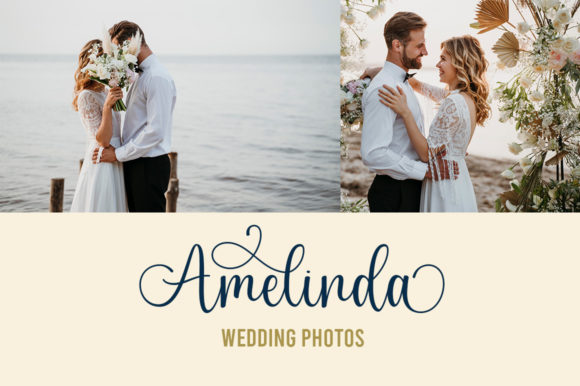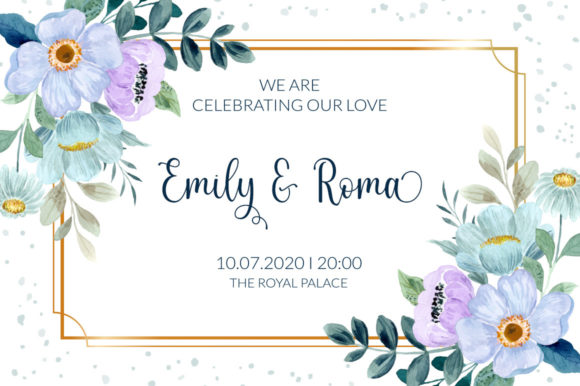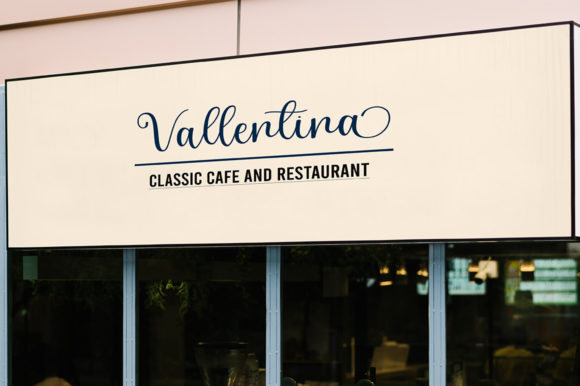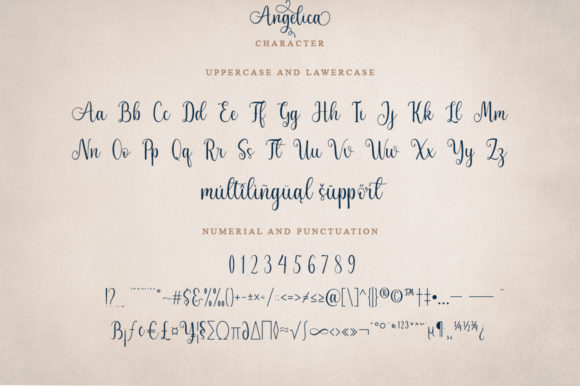
About Angelica Font
Angelica is a distinct handwritten font. Carefully designed to become a top choice, this font has the potential to bring each of your creative ideas to the highest level!